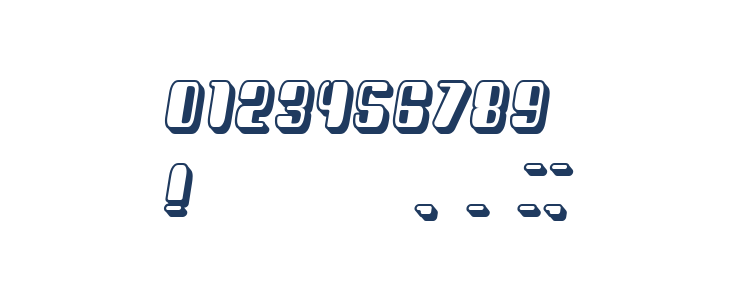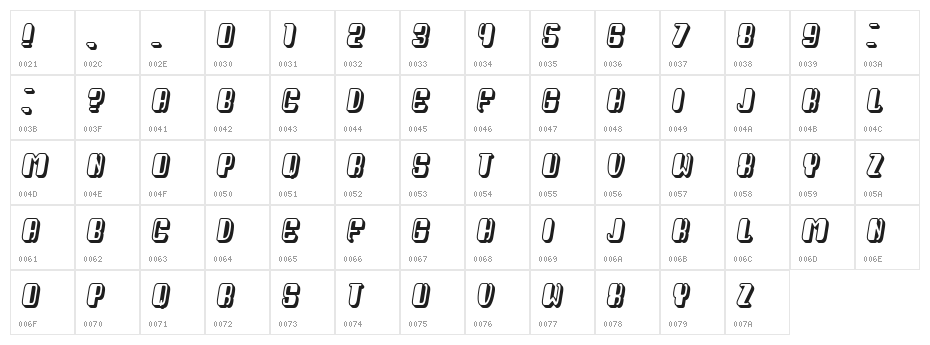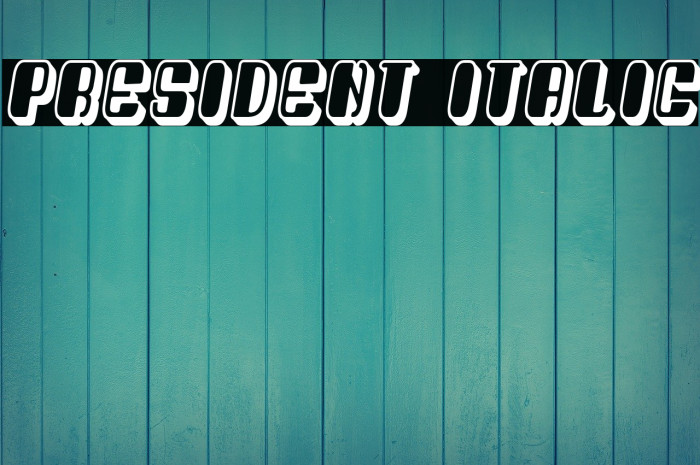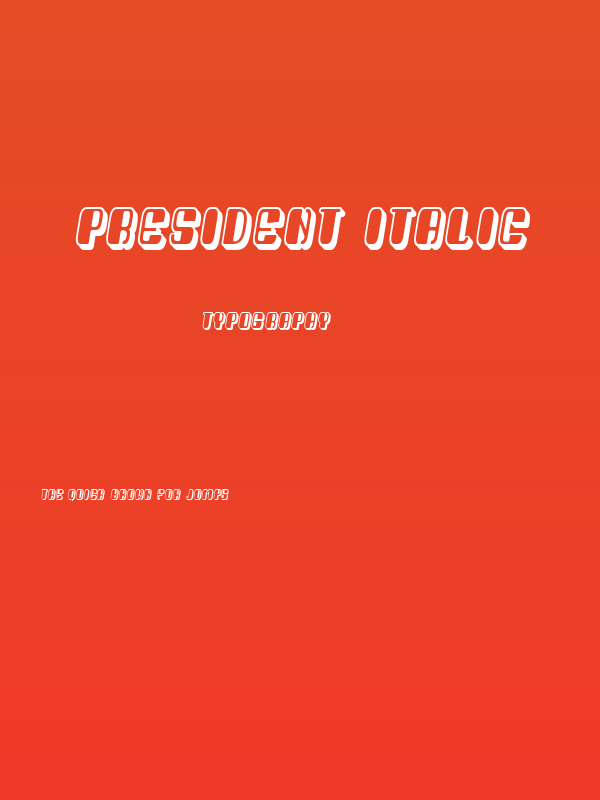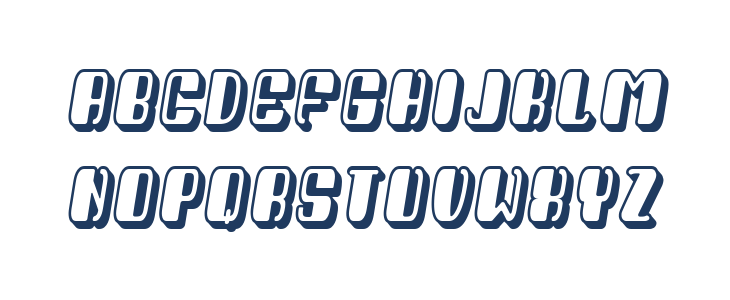
President Italic Font
President Italic Description
This font features a bold, three-dimensional appearance with a distinct italic slant, creating a dynamic and impactful visual effect. The characters are outlined with a thick black border, giving them a shadowed, embossed look that enhances their presence. The uppercase letters are uniform in height, while the numerals and special characters maintain the same bold style. The font's design is modern and eye-catching, suitable for making statements in headlines or logos. Its unique style combines elements of both retro and futuristic aesthetics, making it versatile for various creative projects.
| Proposed Projects | Ideal for use in headlines, logos, posters, and branding materials where a strong visual impact is desired. |